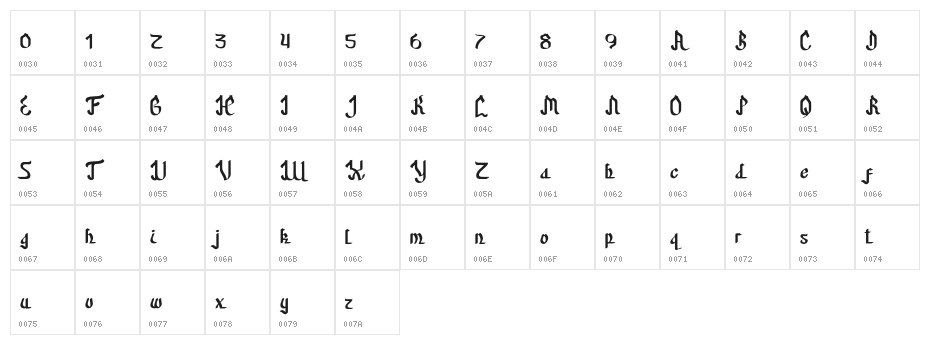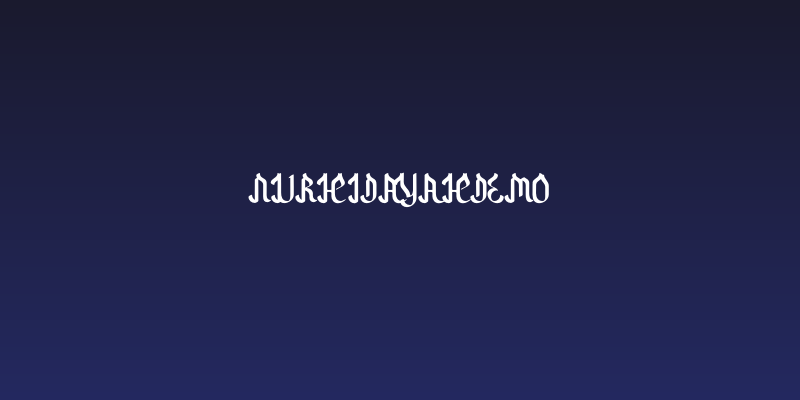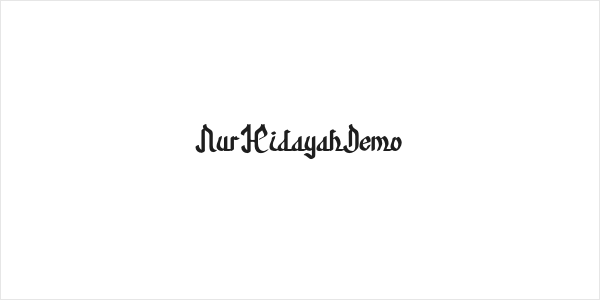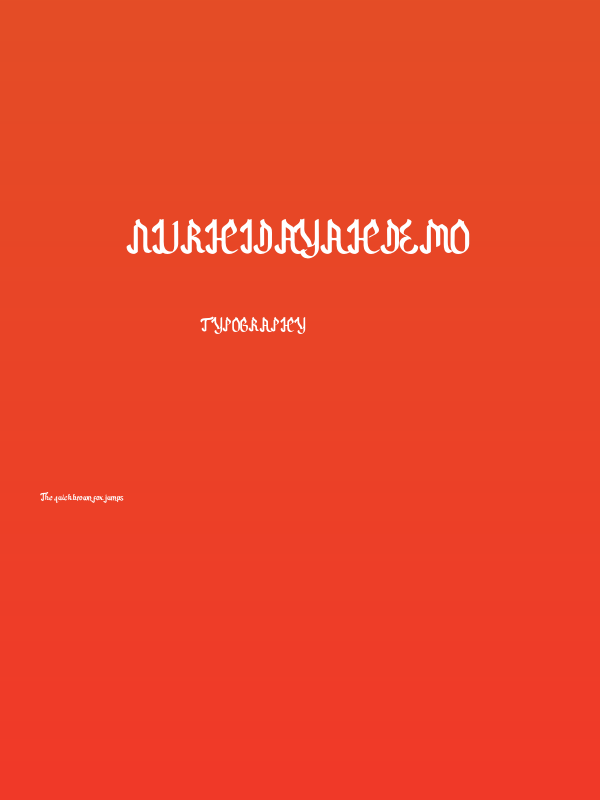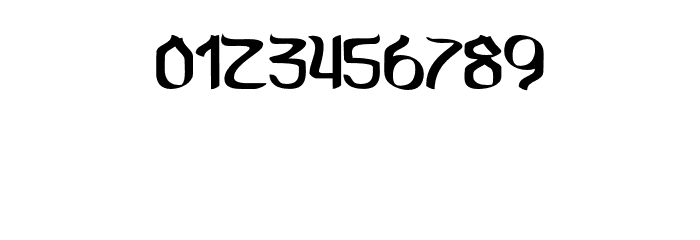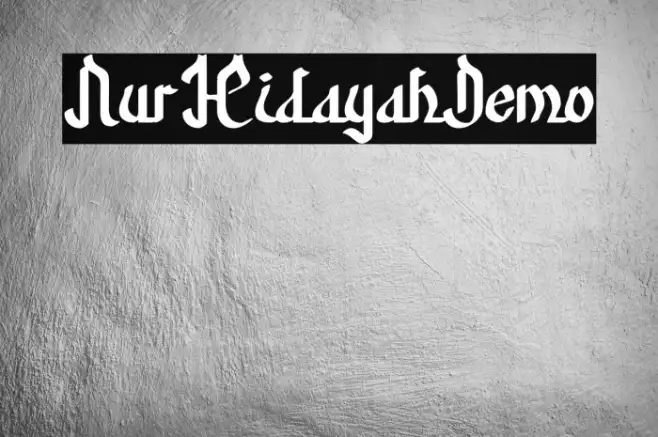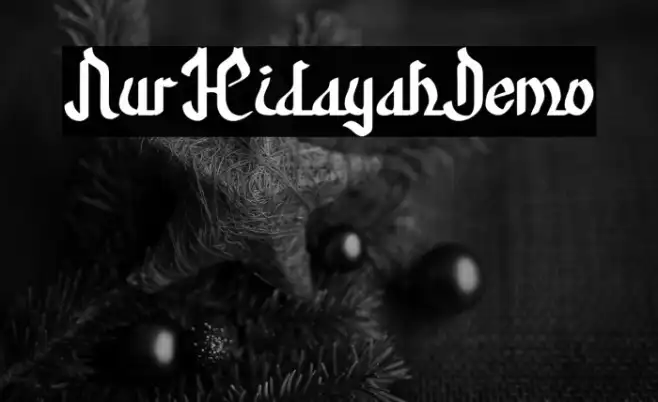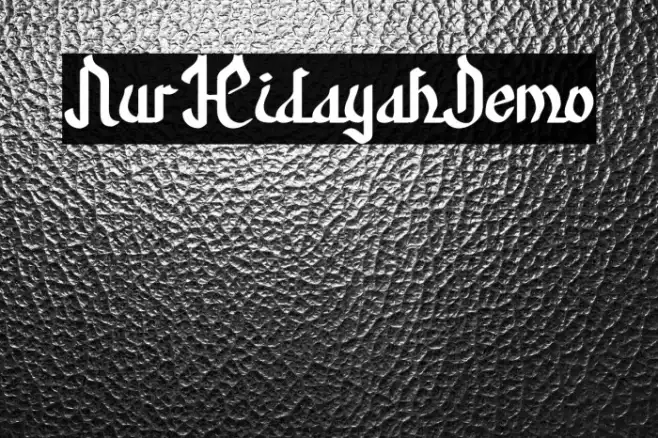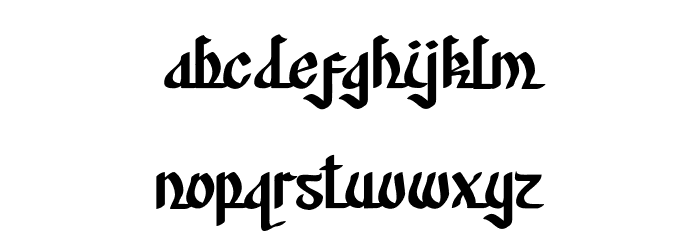
NurHidayahDemo Font
NurHidayahDemo Description
This font exhibits a bold and dramatic style reminiscent of traditional blackletter typefaces. The characters are ornate with sharp, angular lines and intricate details, giving it a historical and authoritative appearance. The uppercase letters are particularly striking, with elaborate flourishes and a strong presence. The lowercase letters maintain the same decorative quality, ensuring consistency throughout the typeface. The numerals are equally stylized, matching the overall aesthetic. This font is ideal for projects that require a touch of elegance and tradition, such as certificates, invitations, or branding for luxury products.
| Proposed Projects | Ideal for certificates, invitations, luxury branding, and historical-themed designs. |